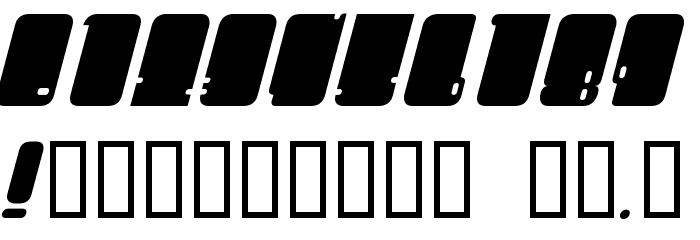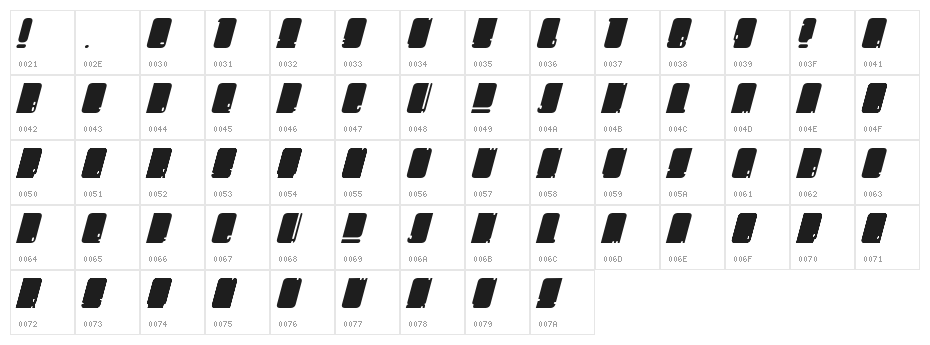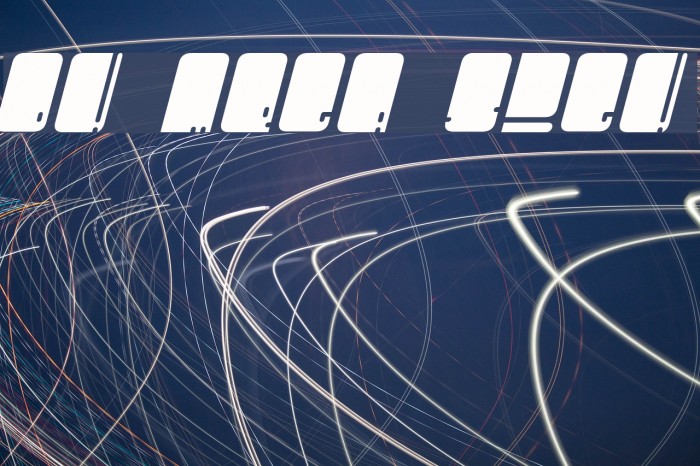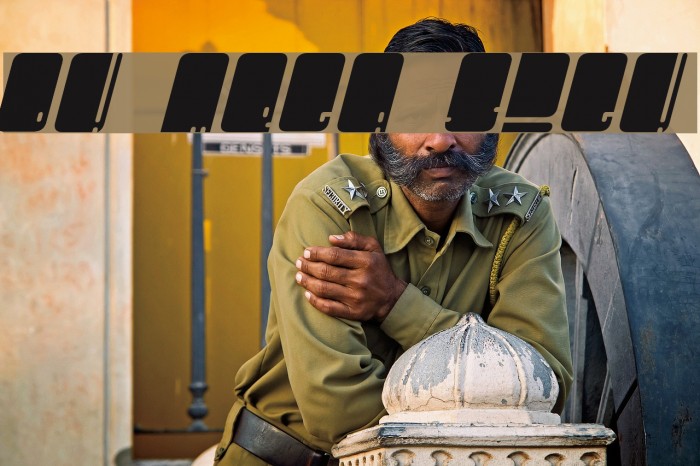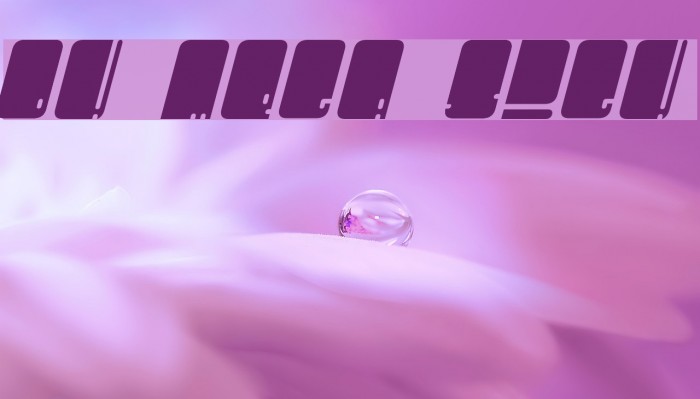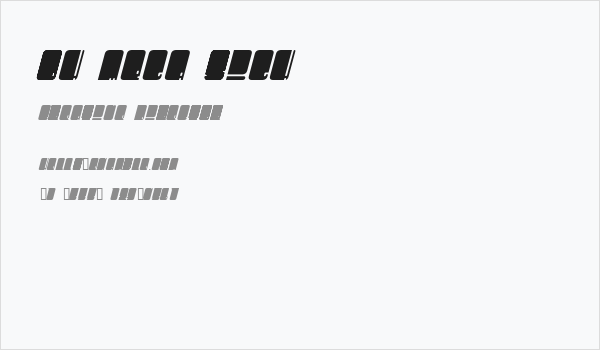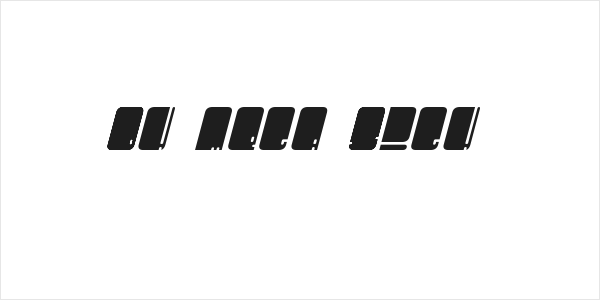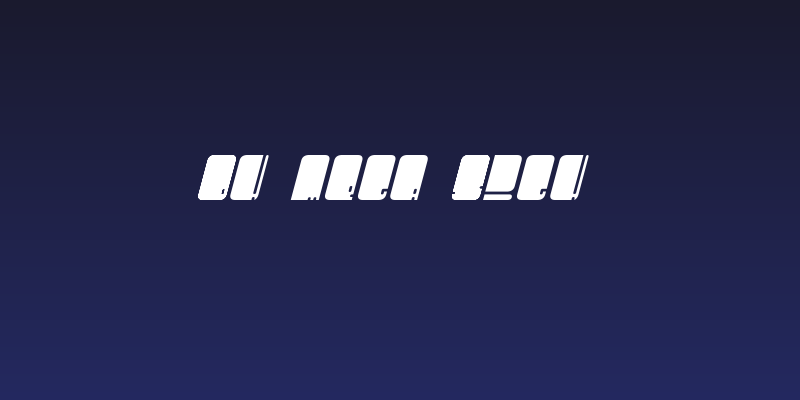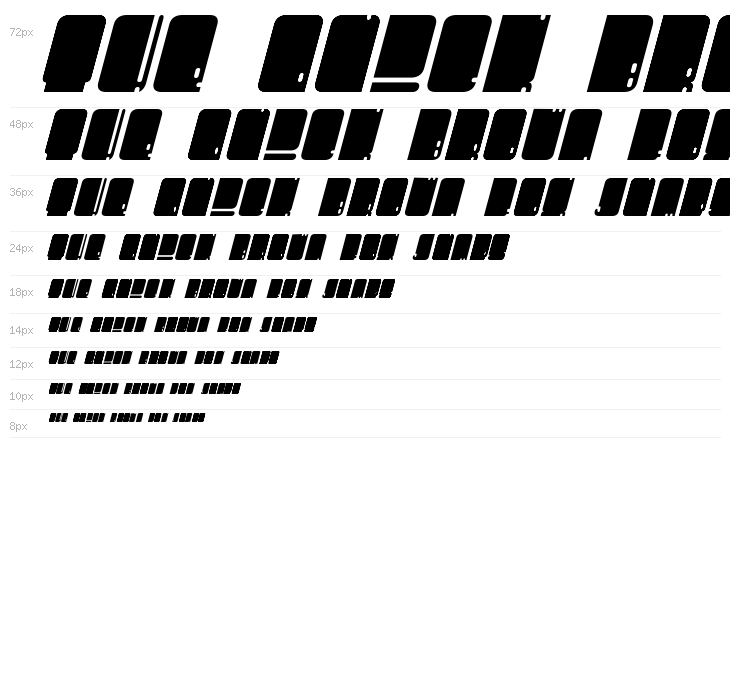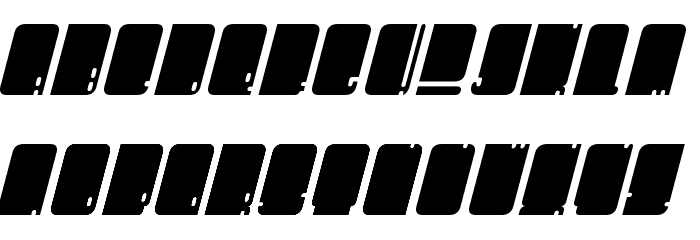
Oh Mega Sigh Font
Oh Mega Sigh Description
This font features a bold, modern design with a strong emphasis on geometric shapes and sharp angles. The characters are wide and have a distinct slant, giving them a dynamic and forward-moving appearance. The strokes are thick and consistent, contributing to a high contrast look that makes each letter stand out prominently. The overall style is sleek and futuristic, ideal for making a bold statement. The font's unique design elements make it suitable for projects that require a contemporary and eye-catching typeface.